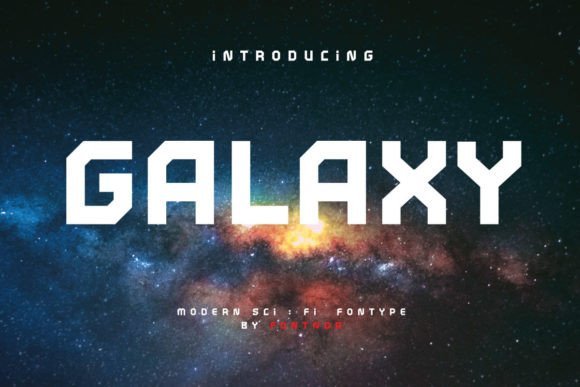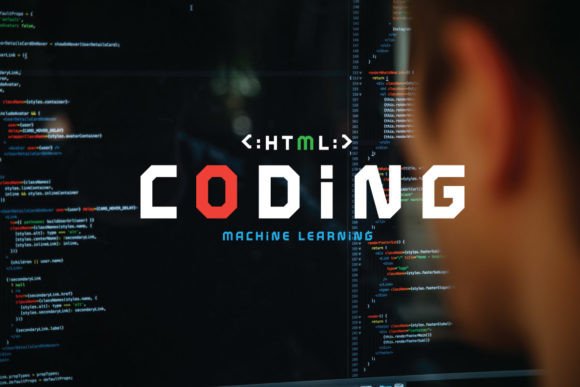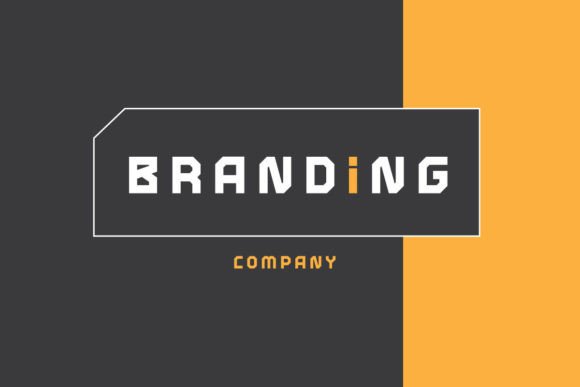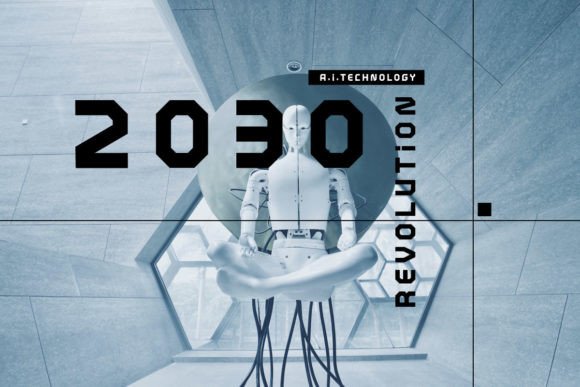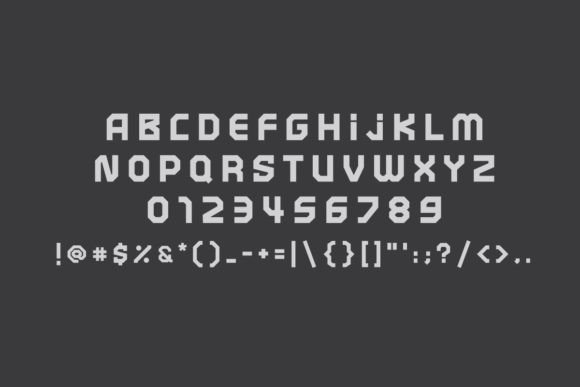
Unlocking the Cosmic Aesthetic: Introducing Galaxy Font
Have you ever stared up at a star-filled night sky, feeling inspired by the infinite possibilities that lie beyond our world? For designers, that spark of creativity can be a powerful catalyst for innovation. It was this very feeling that led us to create Galaxy Font, a modern, elegant, and futuristic look font that’s out of this world.
Perfect for adding a touch of sophistication to your web designs, business cards, or branding projects, Galaxy Font is a game-changer for designers looking to elevate their work. Its sleek and futuristic shape makes it an ideal choice for titles, logos, product packaging, and more. Whether you’re working on a magazine, social media campaign, or simply want to express yourself above the background, Galaxy Font is the perfect tool to help you shine.
Galaxy Font Key Features
- Unique Characteristic: Galaxy Font features a unique blend of futuristic and cosmic elements, with intricate details and shapes that evoke a sense of otherworldliness.
Designer Review: Galaxy Font
Galaxy Font is a beautiful, cosmic-inspired font that’s out of this world ✨. It’s perfect for any design project that needs a touch of celestial magic. The font’s unique blend of futuristic and vintage elements makes it stand out from the crowd. It’s especially well-suited for projects that require a sense of adventure and exploration.
- Unique blend of futuristic and vintage elements
- Perfect for projects that require a sense of adventure and exploration
- Highly customizable, with a wide range of styles and weights
- Works well in both digital and print applications
- May be too ornate for projects that require a minimalist aesthetic
- Can be difficult to read in certain font sizes or styles
- Some characters may not be available in all languages
Overall, Galaxy Font is a great choice for designers who want to add a touch of magic to their projects. While it may have some limitations, its unique style and high level of customization make it a valuable addition to any design toolkit ✨.
Tips for Getting the Most Out of Galaxy Font
Galaxy Font is perfect for:
- Creating futuristic and sci-fi themed designs.
- Adding a touch of elegance and sophistication to your designs.
- Highlighting important information or titles.
Galaxy Font is commonly used for:
- Space-themed posters and graphics.
- Book covers and title pages.
- Infographics and data visualizations.